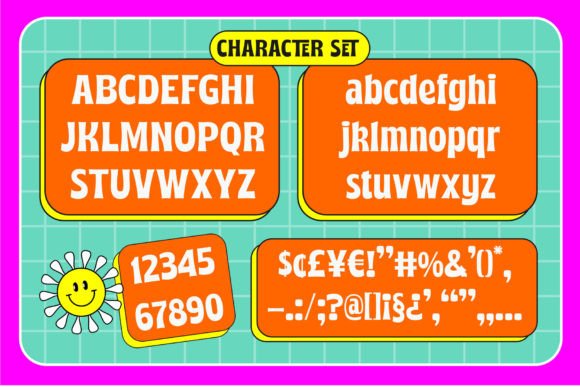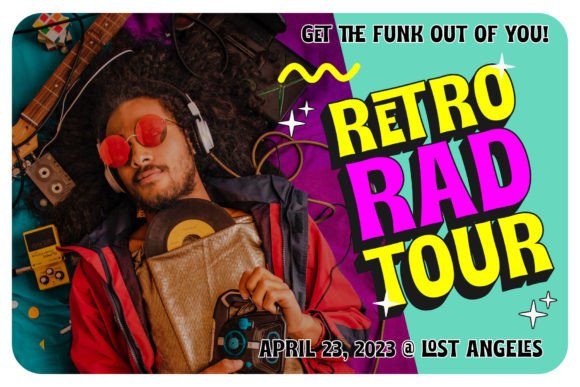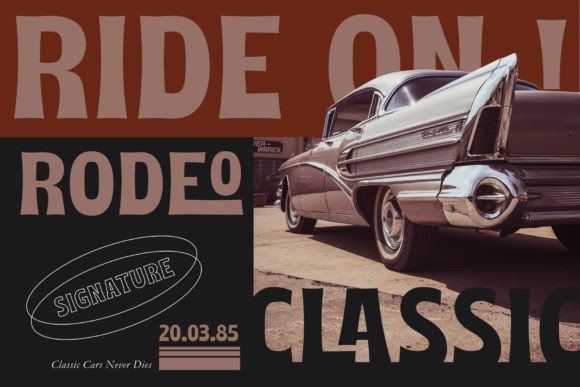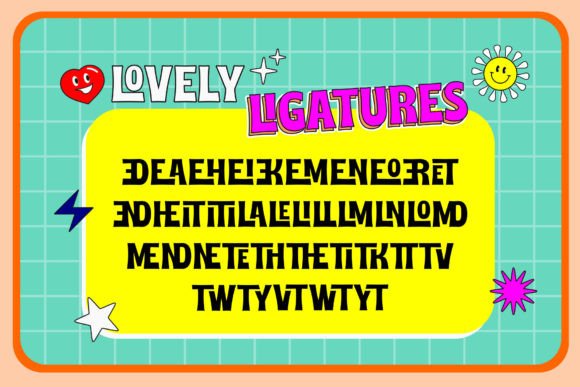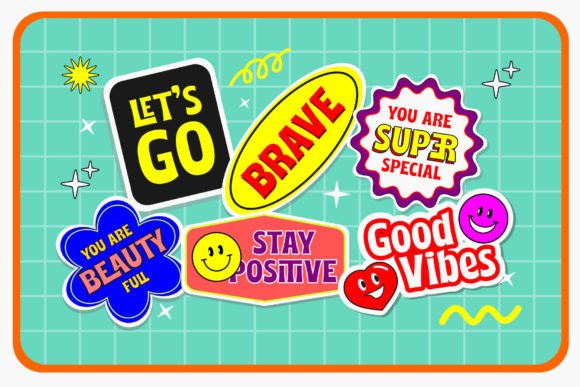
Introduction to Mindsight Font
Mindsight Funky Retro Display Font is a vibrant and energetic typeface that captures the essence of vintage aesthetics.
With its playful curves and bold strokes, it adds a touch of nostalgia and creativity to any design project, making it perfect for eye-catching headlines, posters, and artistic displays .